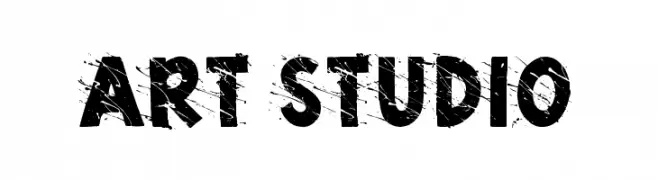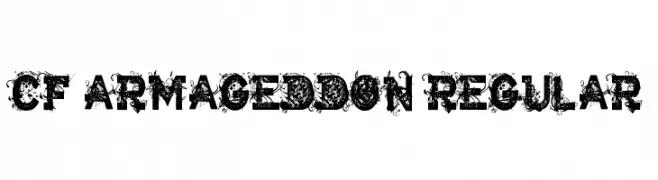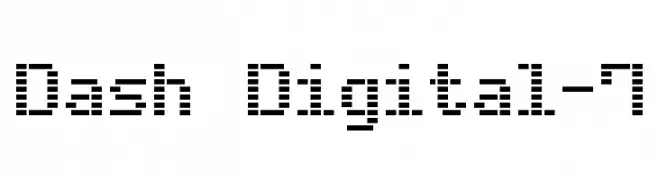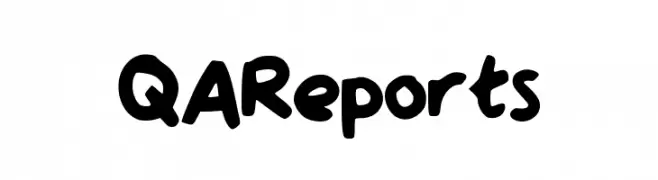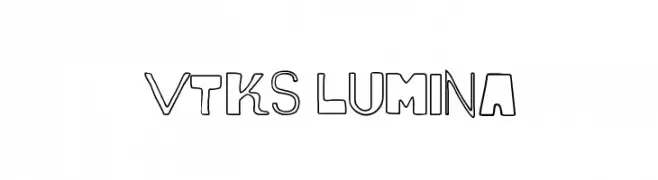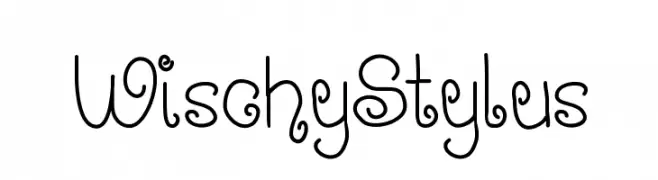
A bold, distressed font with a grunge texture for a rugged, edgy look.
A decorative and intricate font with bold, uppercase letters and elaborate flourishes.
A pixelated, digital-style font reminiscent of old digital displays.
A bold, playful handwritten font with thick strokes and rounded edges.
A bold, artistic font with a mix of solid and outlined characters, perfect for creative projects.
A whimsical, curly font with a playful and decorative style.